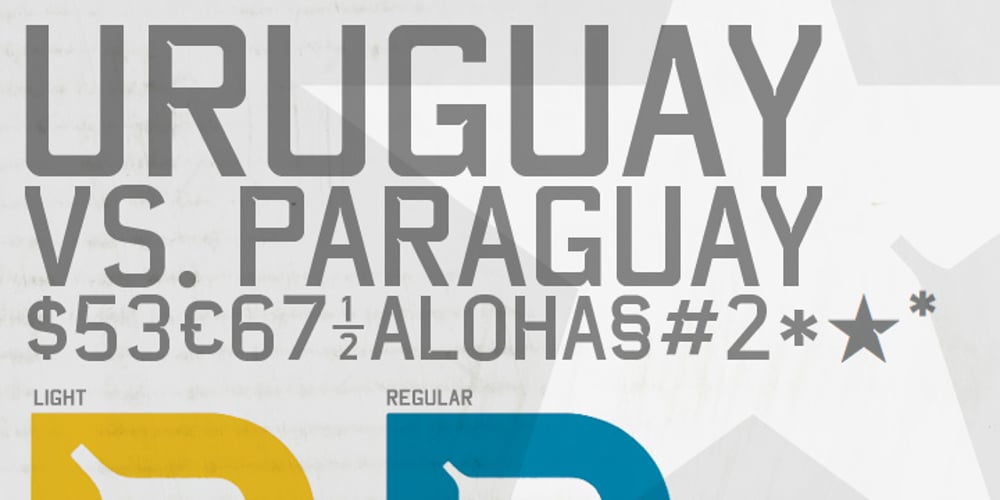
CA Uruguay
CA Uruguay font
CA Uruguay Font Family was designed by Thomas Schostok and published by Cape Arcona Type Foundry. CA Uruguay contains 2 styles and family package options. An original headline font and only available in uppercase letters. Different in use: as a typeface for the National Soccer Team of Uruguay or for the lettering of South-American aircraft carrier. Comes in two different styles, but, actually the typeface hasn’t a ‘real’ light style, just a double portion of ink traps: unusual and beautiful in size.